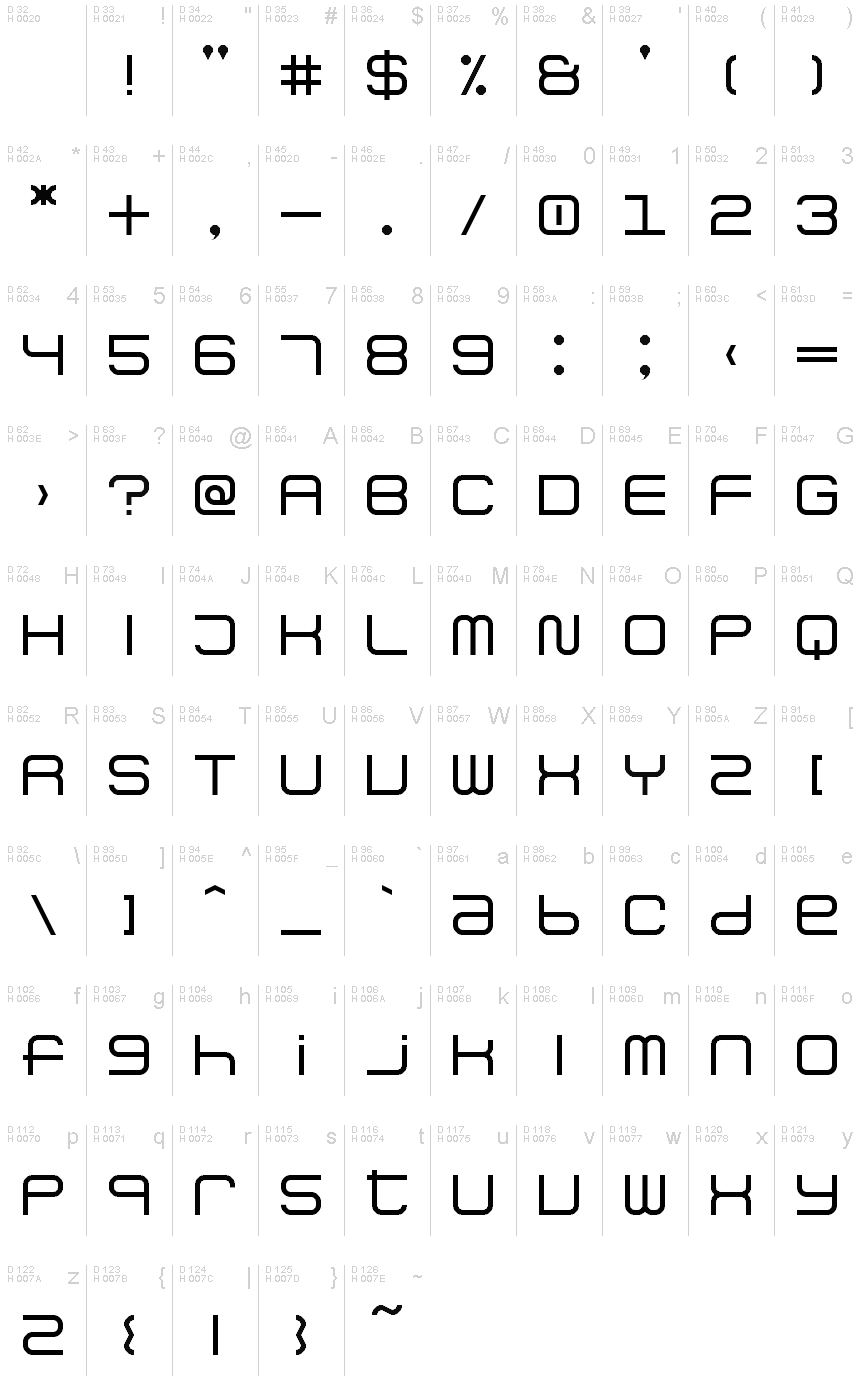
Comicool Regular
Designer description: A half-sized, filterless version of Comicool Unicase which also has square terminals.
This has lowercase, but is made for all-caps comic book style lettering, so consider the lowercase as something added for accessibility's sake...